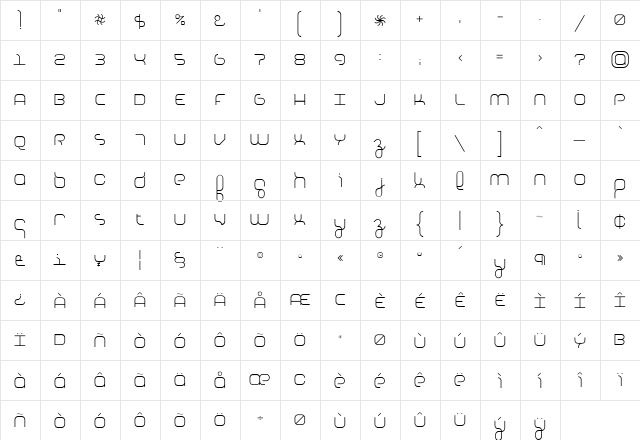
Basix Regular
Design Context for Basix Typeface
Basix takes a measured approach to typography — its balanced proportions and neutral character make it a reliable workhorse for both digital and print work.